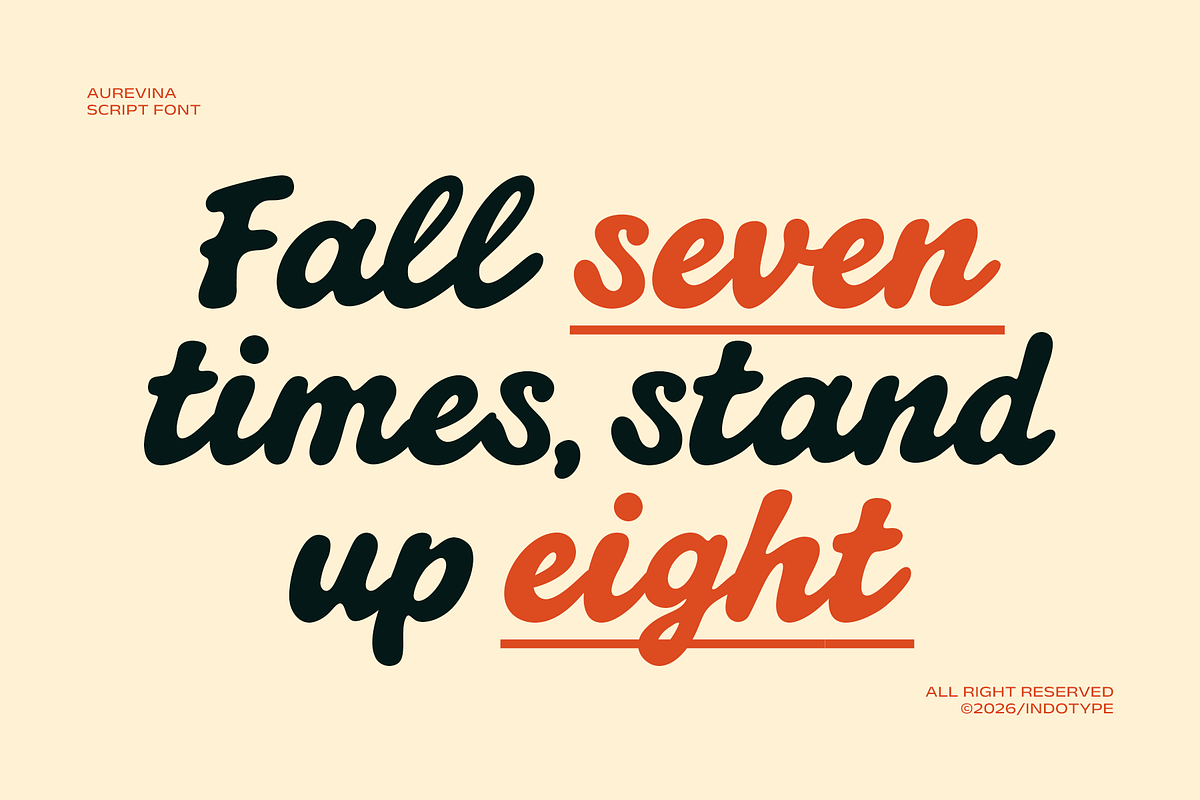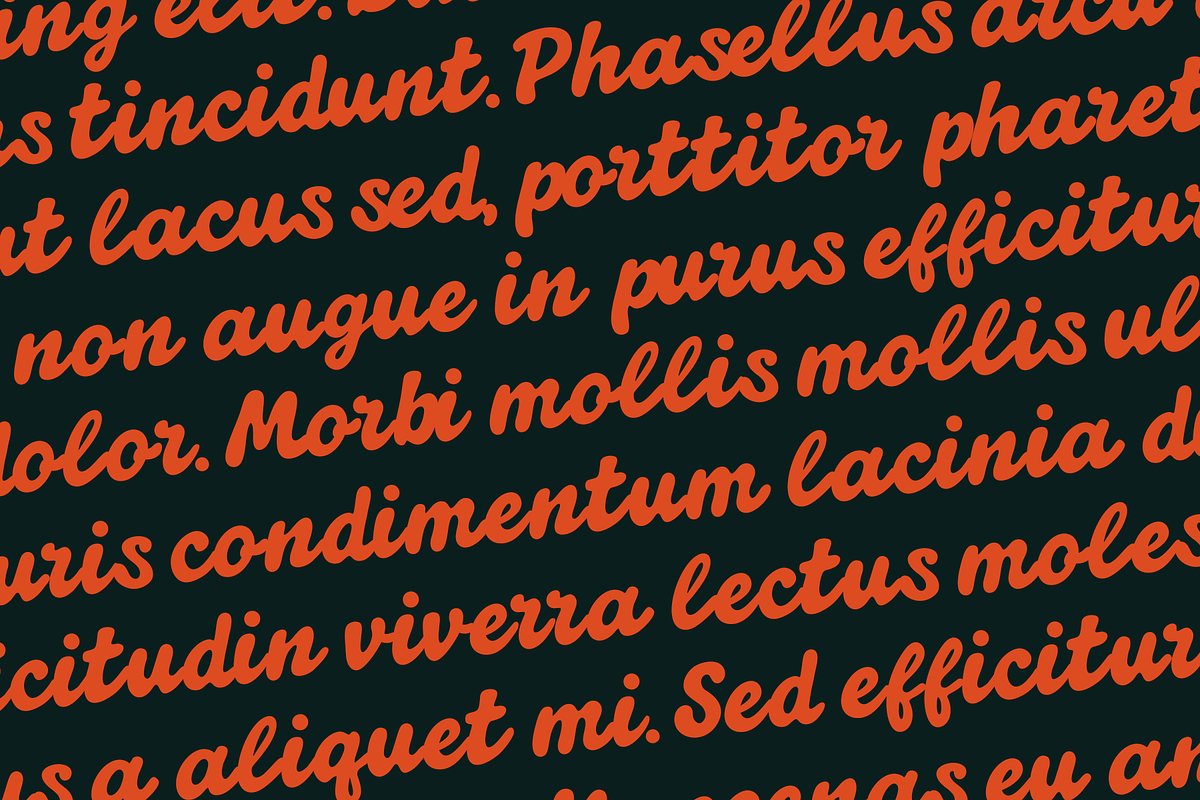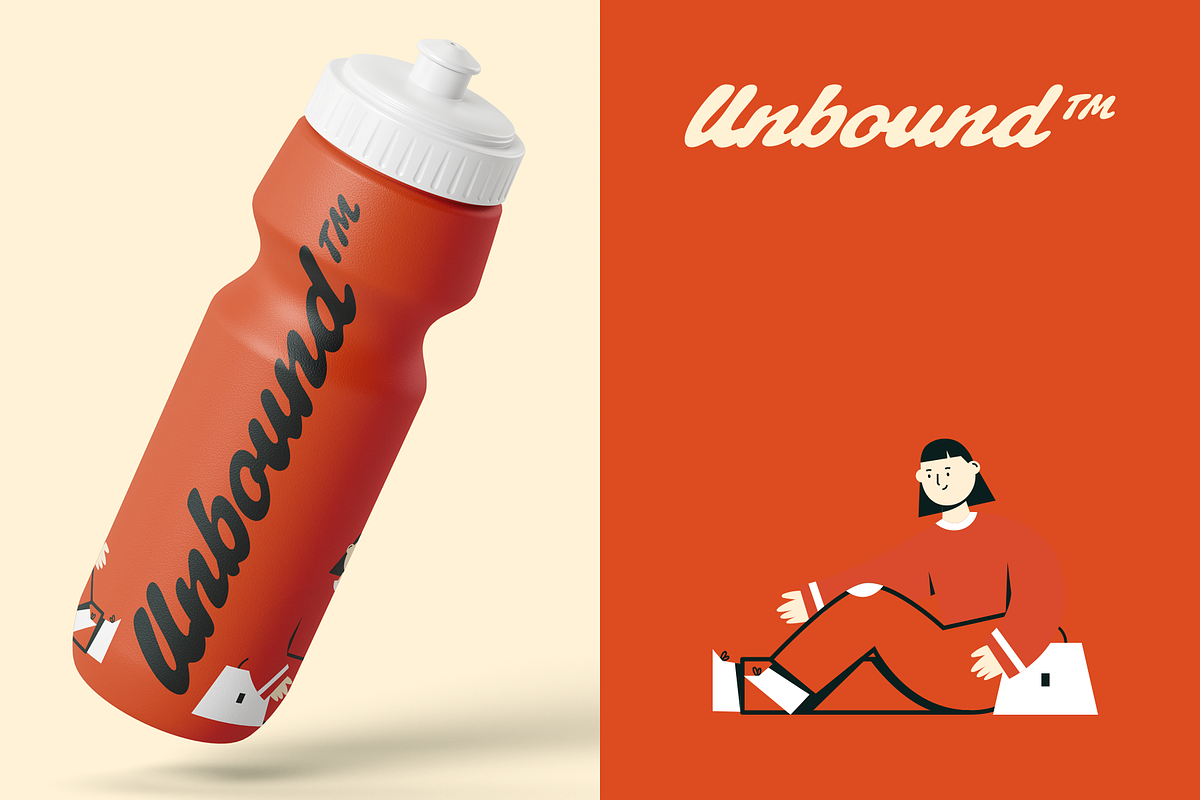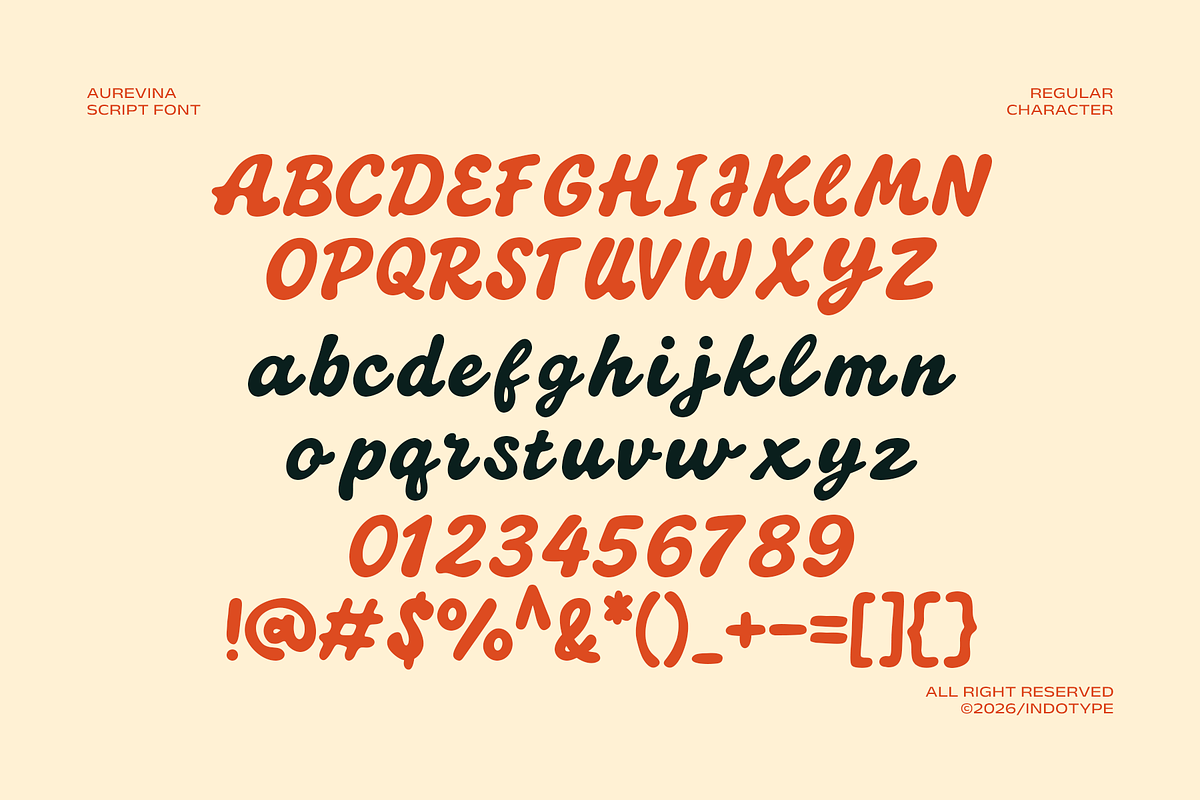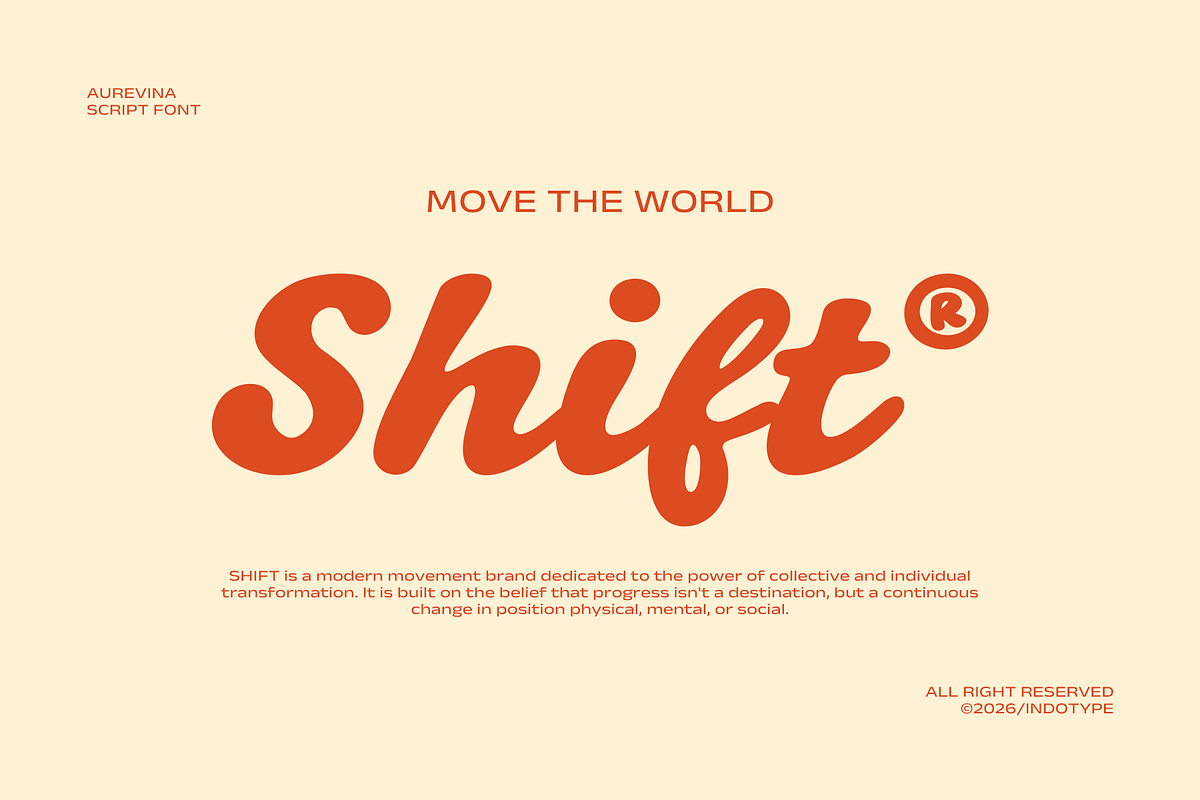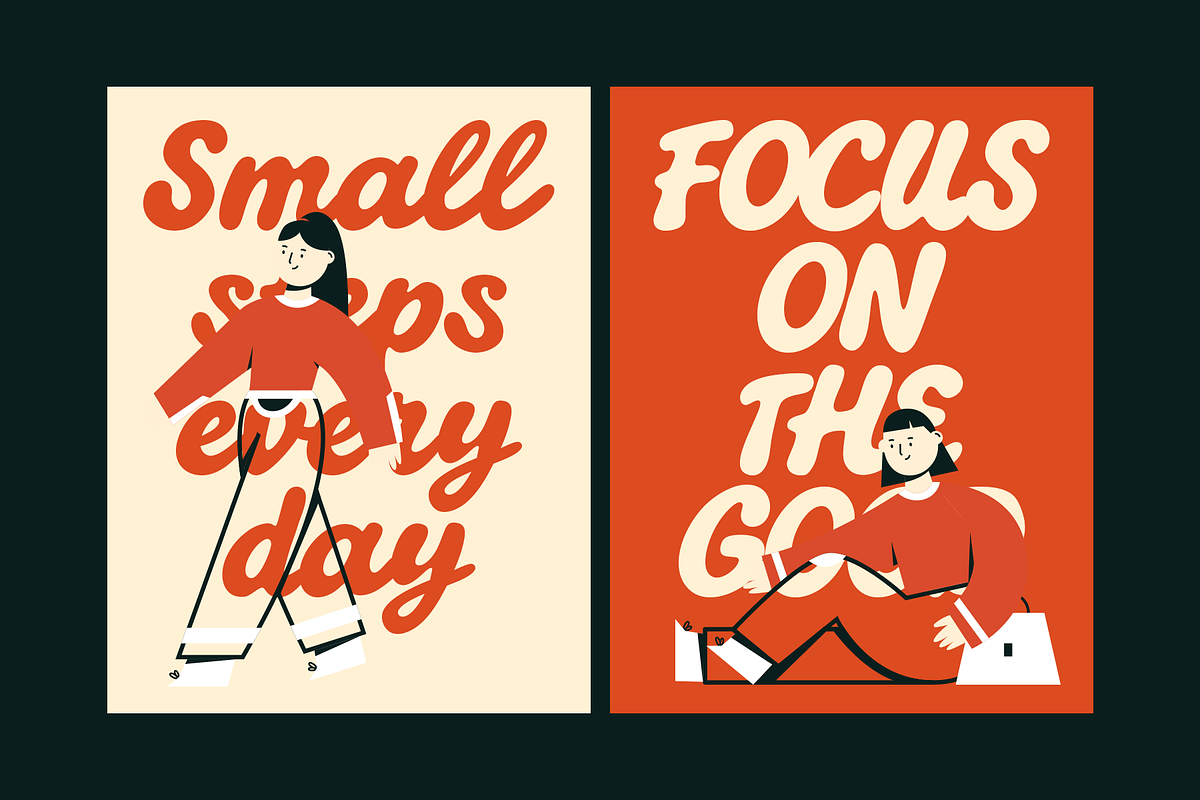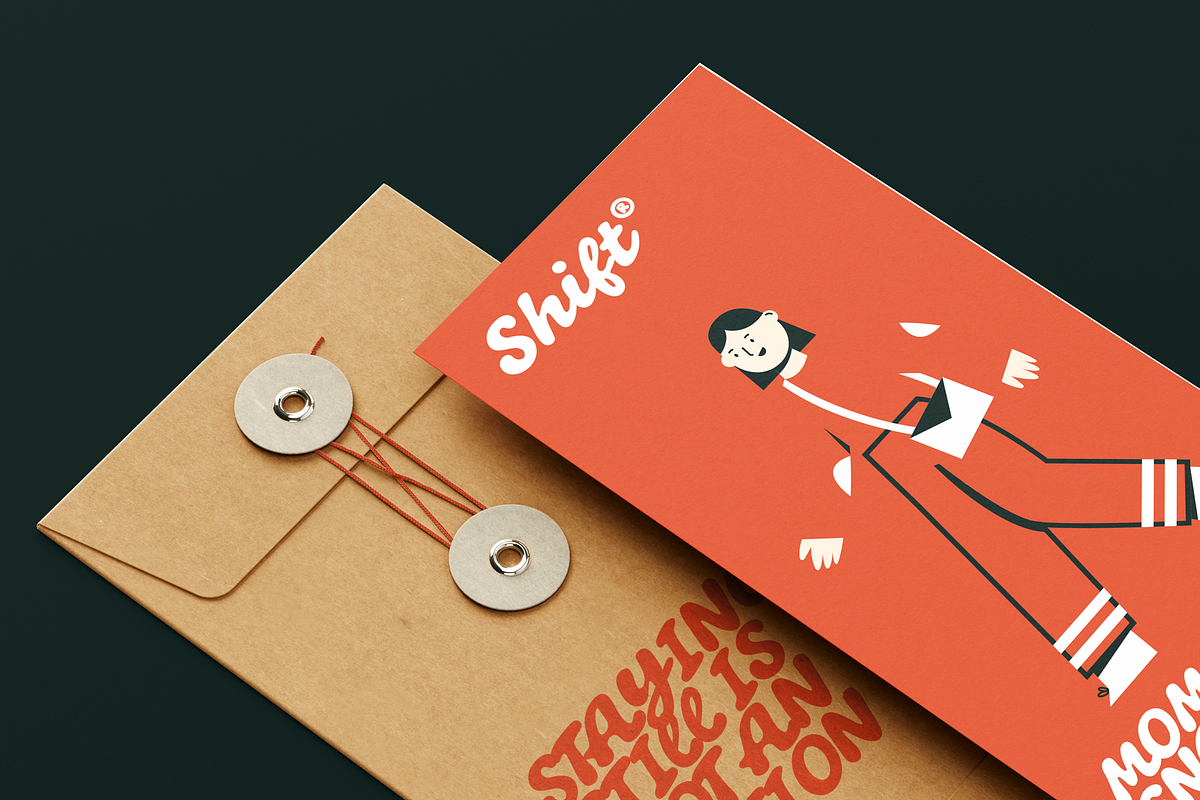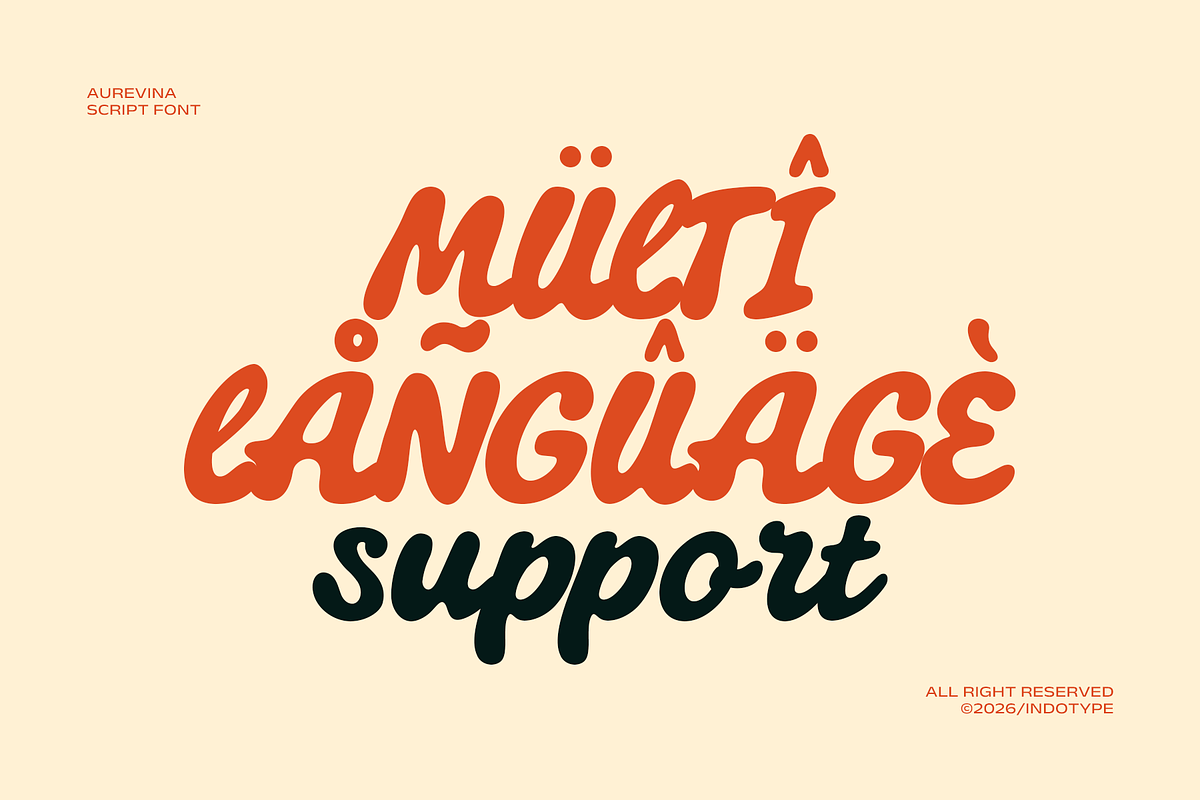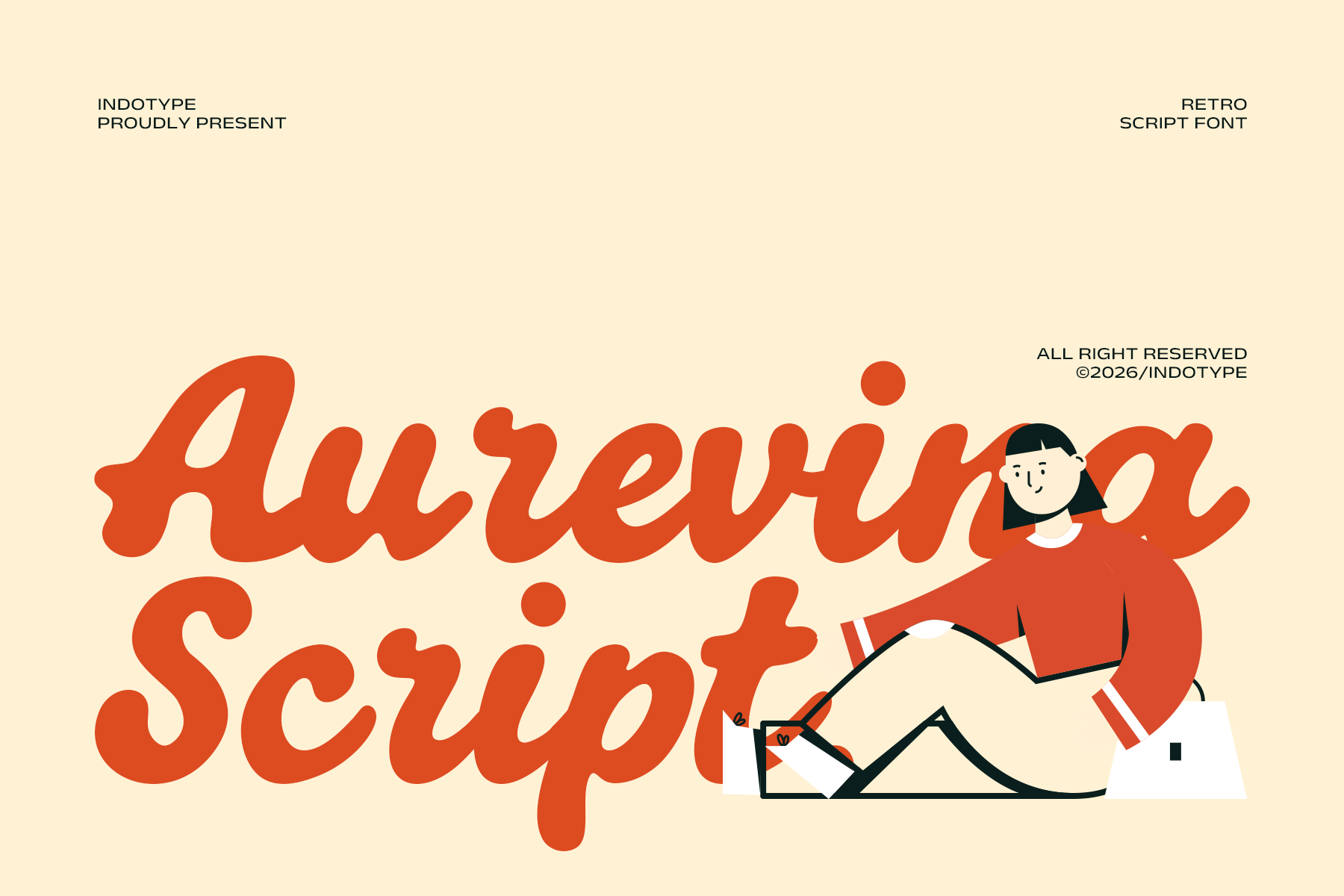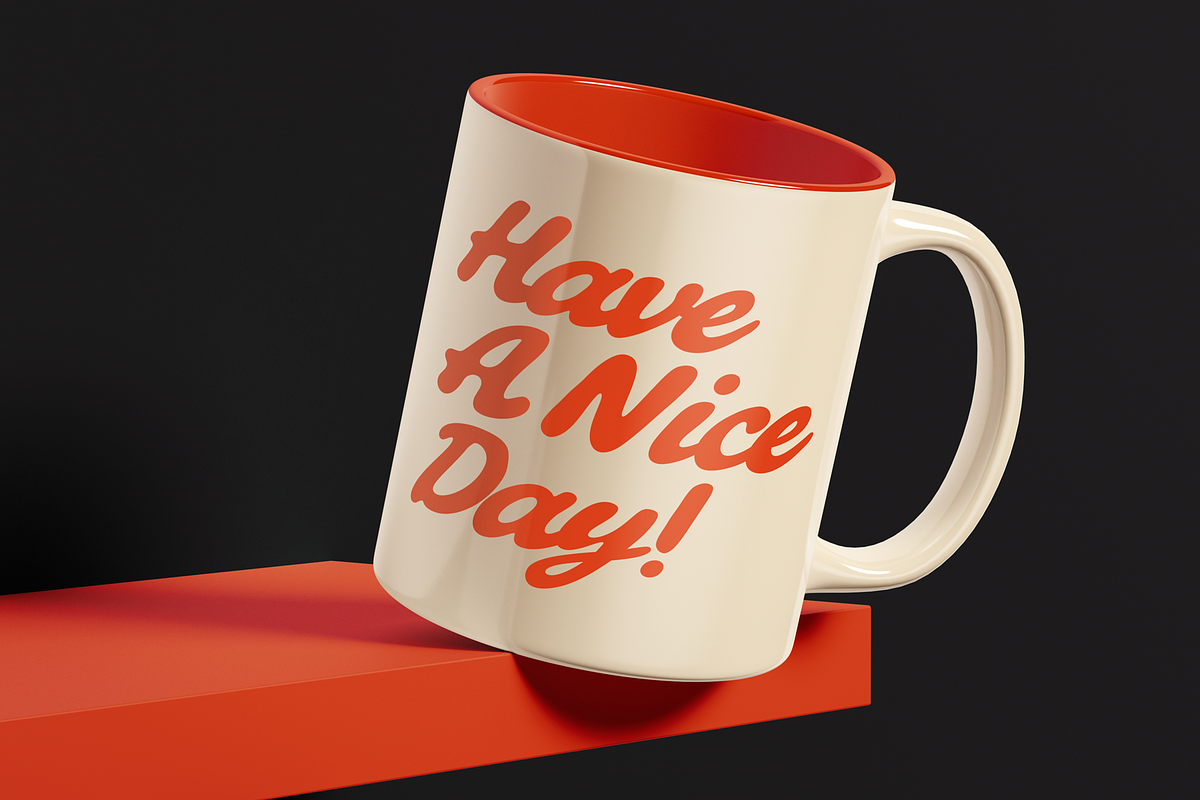
Aurevina - Retro Script Font
Aurevina is a bold retro script typeface that delivers the full warmth, rhythm, and visual generosity of mid-century connected cursive lettering in a completely contemporary digital package. Aurevina channels the golden age of American brush script advertising — the hand-lettered era when soda brands, diner menus, beauty products, and record labels all spoke in the same confident, flowing script language — and reinterprets it with the optical refinement and technical precision that modern design demands. The result is a typeface that feels simultaneously nostalgic and entirely current: warm enough to evoke genuine human craftsmanship, bold enough to anchor any contemporary design composition with complete authority. Aurevina is defined by its extraordinary stroke weight and the particular way that weight is distributed across each letterform. The strokes are thick, rounded, and inflated to near-maximum mass — a treatment that references the fat-brush calligraphy of mid-century commercial lettering, where speed and confidence of hand produced letterforms of effortless visual weight. The stroke terminals are fully rounded and smooth, pooling naturally at the natural resting points of each brush gesture in a way that suggests genuine physical mark-making rather than digital construction.